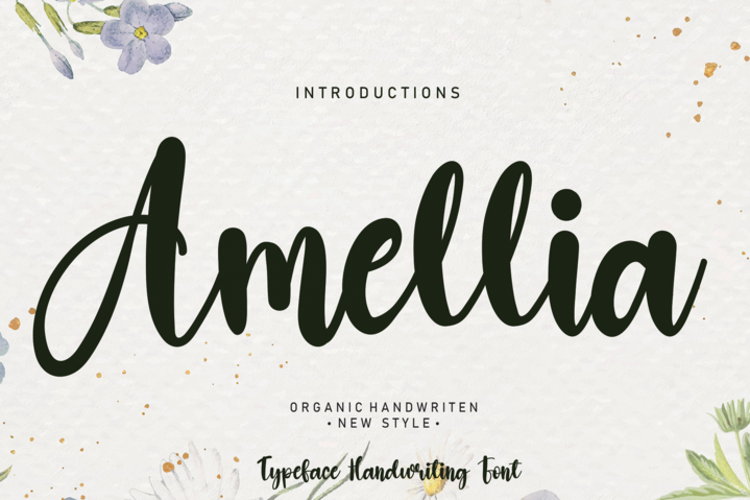
Amellia Font
the latest style letters are perfect for wall displays, wedding invitations, social media post logos, advertisements, product packaging, product designs, labels, photography, watermarks, invitations, stationery, and any project that requires taste handwriting.